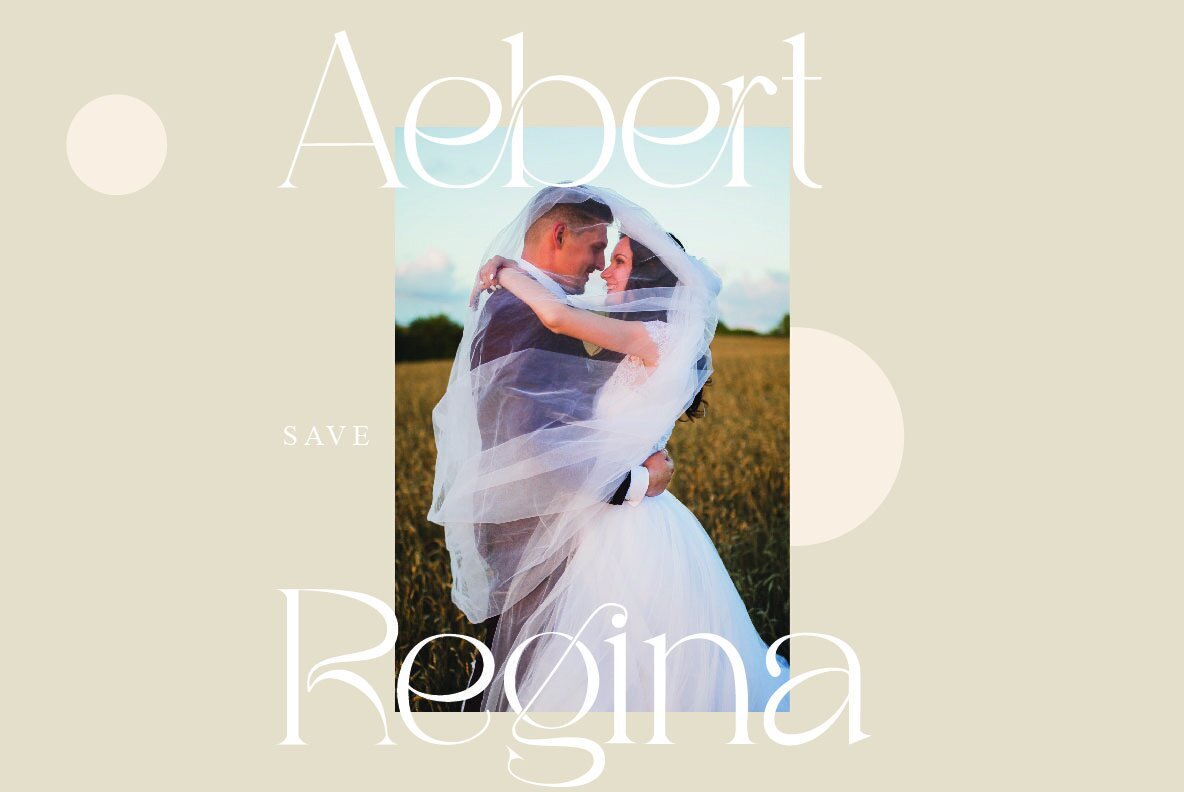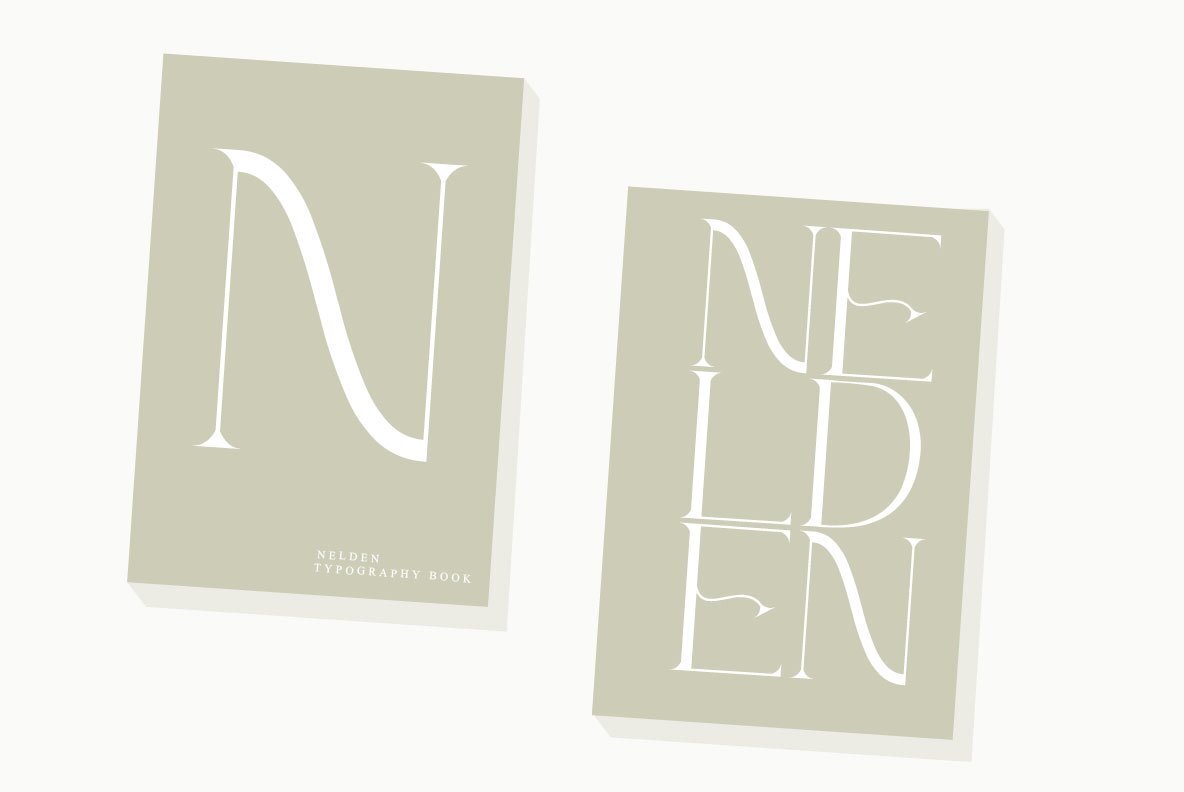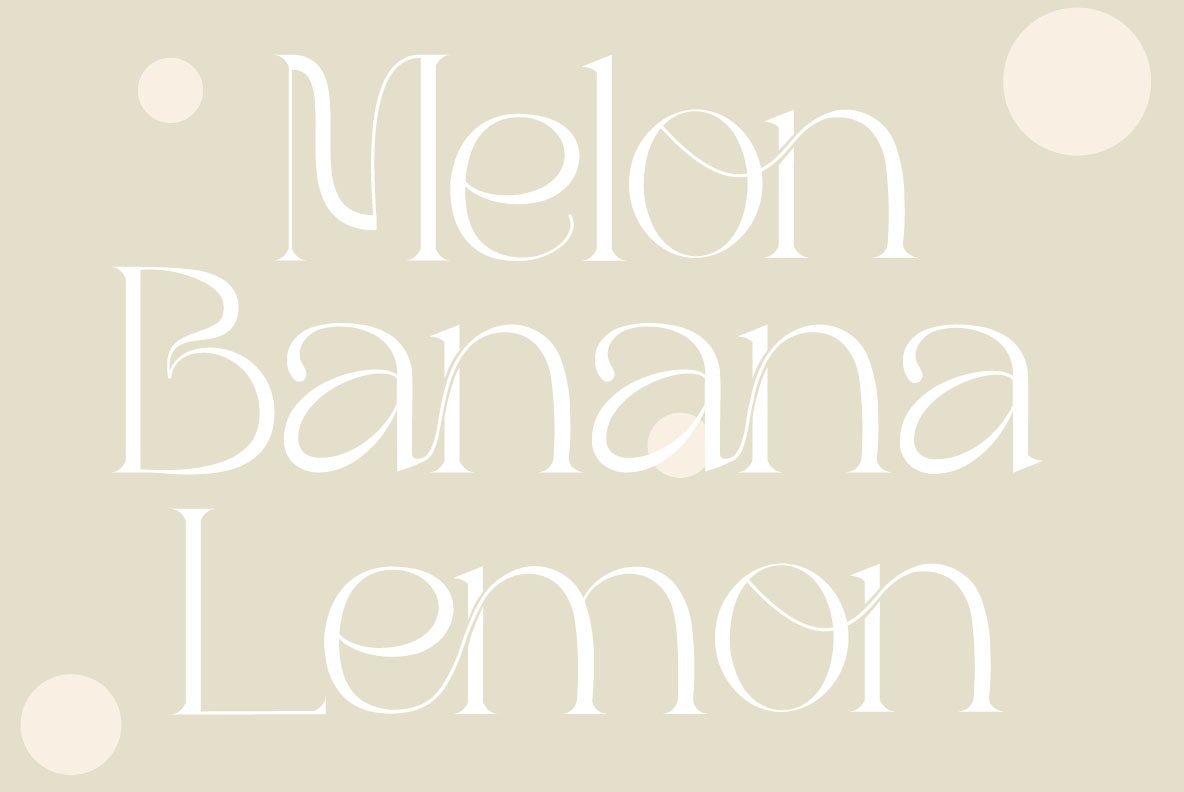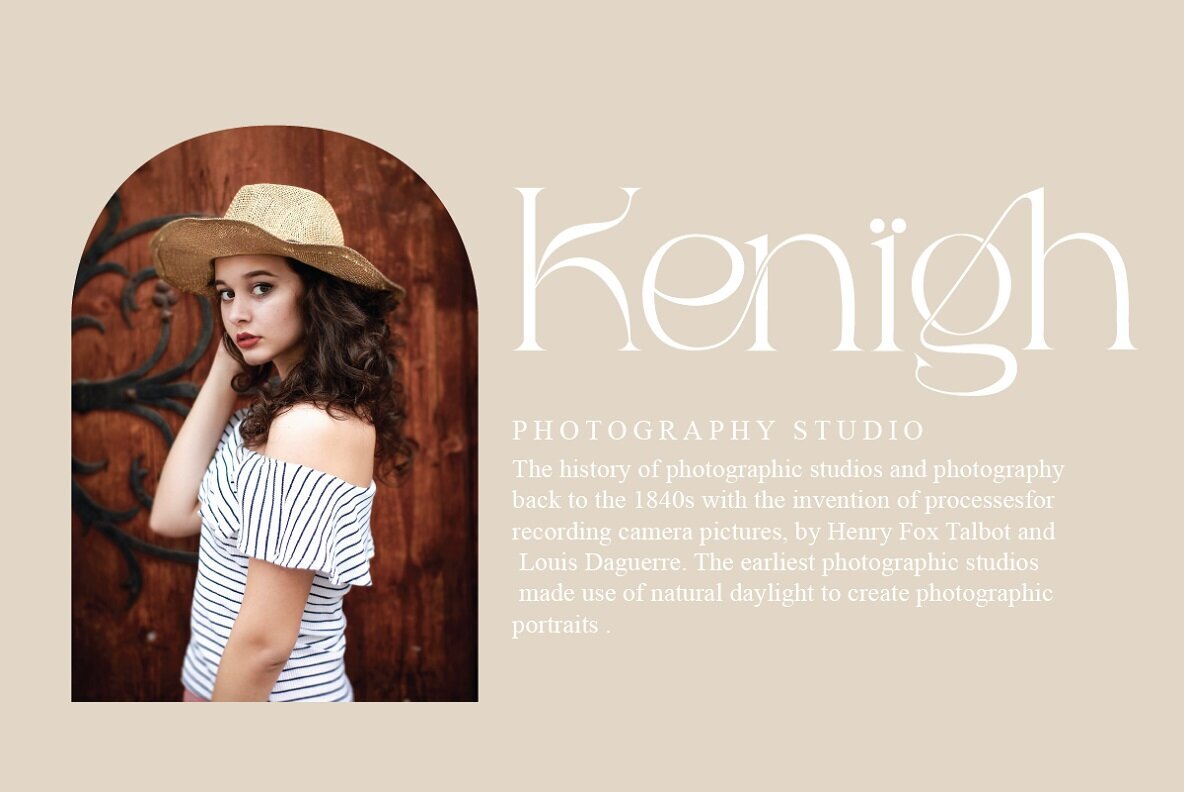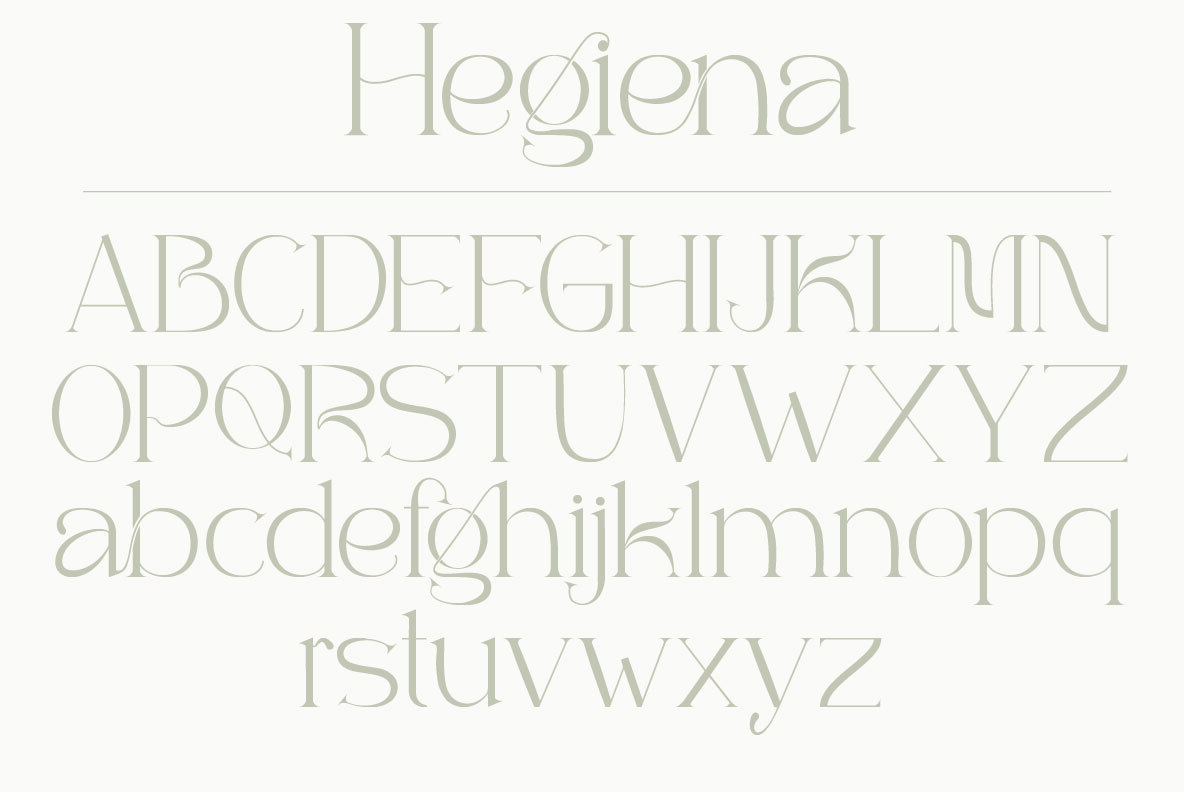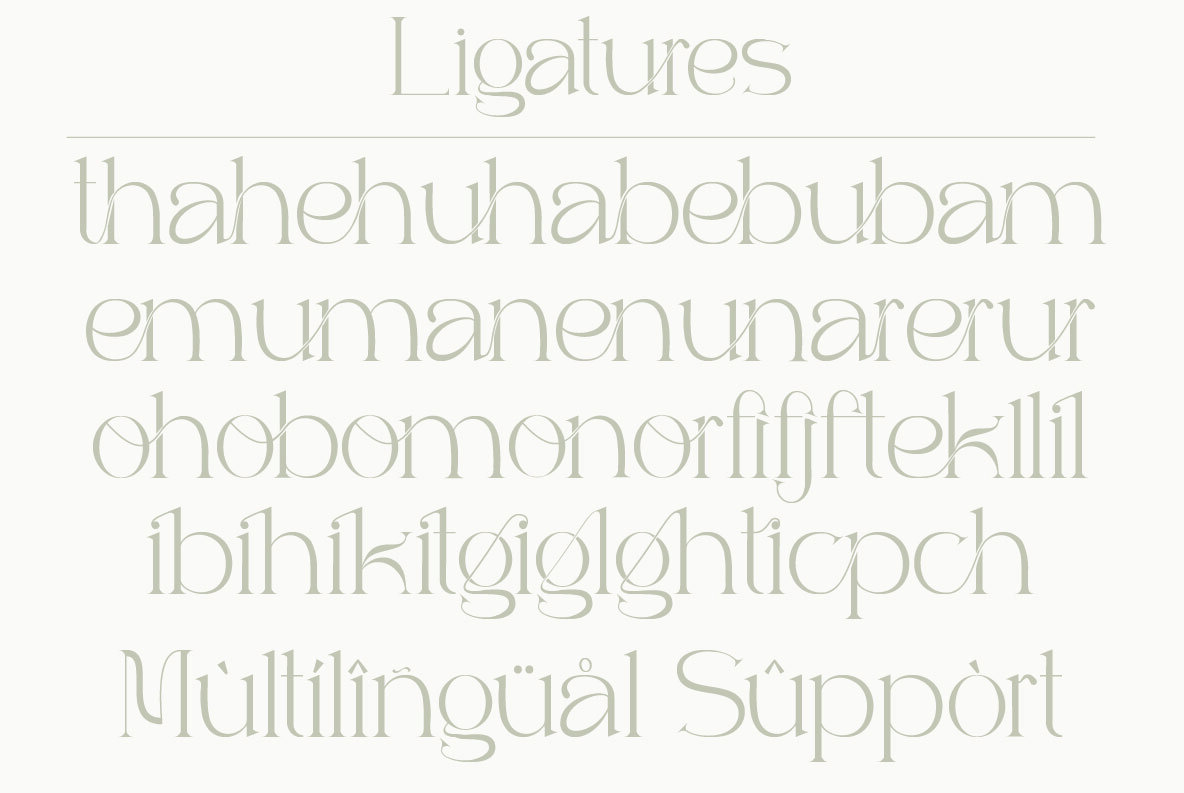
Hagiena Font
Hegiena
Hagiena is a sophisticated modern serif typeface that captivates with its exquisite ligatures and unique glyphs. Its multilingual support and thoughtfully designed ornamentation make it an exceptional choice for a myriad of creative applications. Ideal for editorial projects, logo design, clothing branding, and more, Hagiena's versatility shines both in large-scale presentations and subtle details.Hagiena: Versatile Serif Typeface for Modern Design